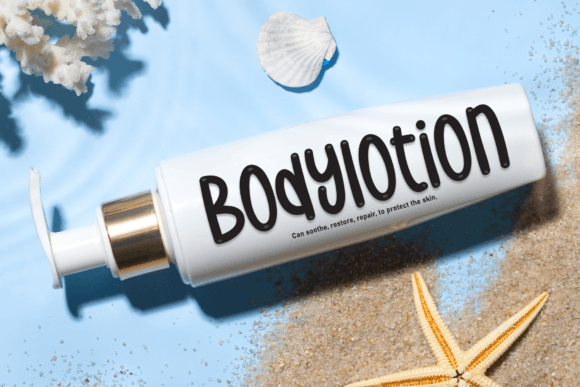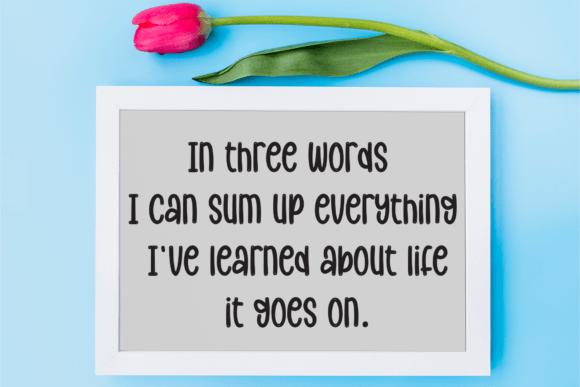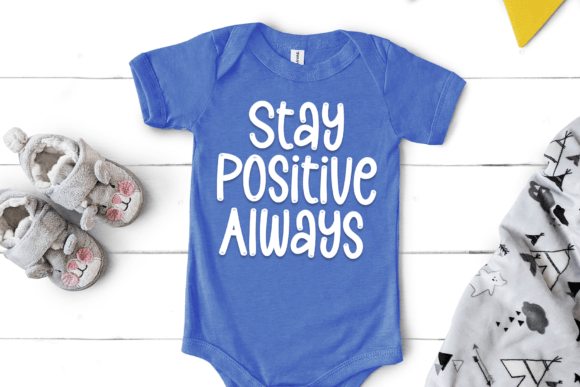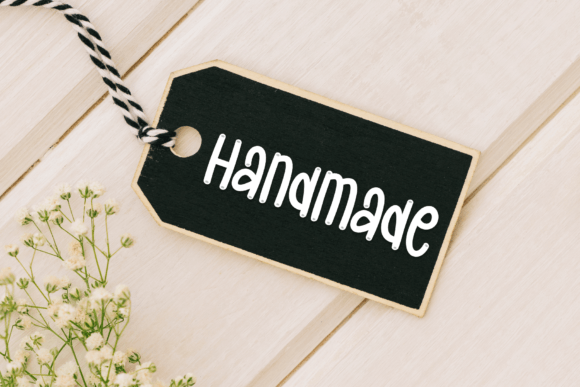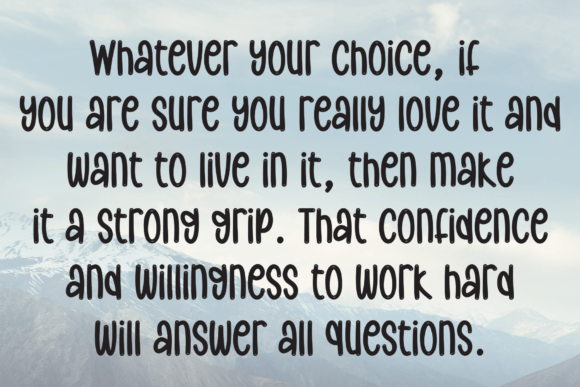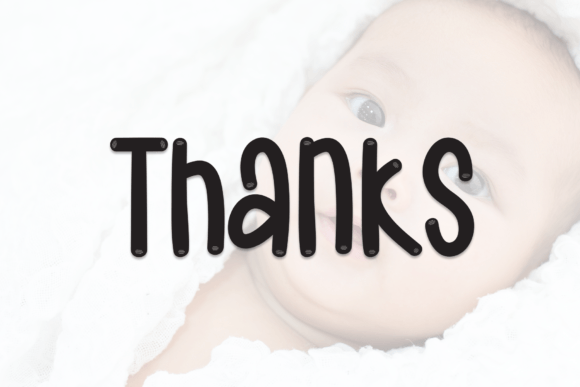
The Babyface Font: A Timeless Beauty for Your Designs
Have you ever been in the middle of a design project, and suddenly, you just can’t seem to find the right font? I know I have! It was a few months ago when I was working on a branding project for a client’s bakery. They wanted a font that was both elegant and playful, but I just couldn’t seem to find the perfect fit. That’s when I stumbled upon the Babyface font, and it instantly became my go-to choice.
The Babyface font is a lovely and timeless handwritten font that has become a staple in my design toolkit. Its unique and beautiful touch makes every letter come alive, making it perfect for creating eye-catching logos, branding, and quotes.
- ✨ Unique and beautiful handwritten style
- ✅ Perfect for creating eye-catching logos, branding, and quotes
- 💕 Every letter has a personal touch, making it feel like a bespoke design
- 🎉 Great for both digital and print designs
While the Babyface font is an amazing addition to any design project, there are a few things to keep in mind:
- ⚠️ Some letters may be a bit tricky to read at smaller font sizes
- 🤔 Limited availability of stylistic alternates, but still plenty of options to play with
The Story Behind Babyface
The Babyface font was designed with love and care by a talented type designer who wanted to create a font that felt both personal and elegant. Inspired by classic handwritten scripts, Babyface brings a touch of warmth and personality to any design.
Q: Is Babyface suitable for body text?
A: While Babyface is an amazing font, it’s best suited for headings and titles. For body text, you might want to choose a font with better legibility.